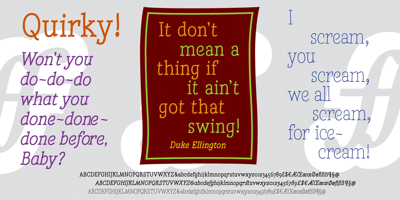
Quirky Font Family was designed by Andy Benedek and published by Fine Fonts. Quirky contains 3 styles and family package options. The origin of Quirky lay in the Duke Ellington number It don’t mean a thing if it ain’t got that swing. For some time I had wanted to create a font from expanded stroked lines. I wanted to produce a light-hearted font, but with some classic touches. One day, whilst doodling in Adobe Illustrator, Quirky’s letterforms just appeared on screen as if from nowhere. First I drew the test word ‘hamburgefonts’ and then just kept going, unable to stop. Character after character appeared as if by magic. From the start, Quirky had a life of its own. The letterforms are rather more sophisticated than merely outlined stroked lines. Subtle adjustments to compensate for optical effects have been been incorporated. For example, horizontal stems have thicknesses slightly less than vertical stems and where stems join together, the thickening effect has been reduced by cutting into the joint. Being almost monoline, Quirky works well reversed out of a solid background and for TV credits. The Quirky fonts are fun fonts, so set, laugh and enjoy! I hope Quirky will give you as much pleasure in using it as I got in creating it! Shortly after the roman version was born, an italic version and then a thin version were created to form a family of three fonts.